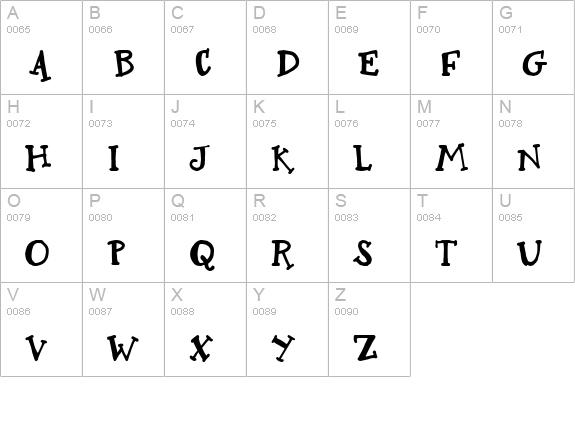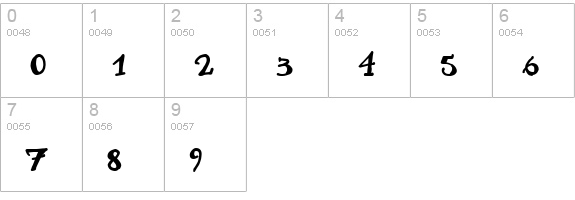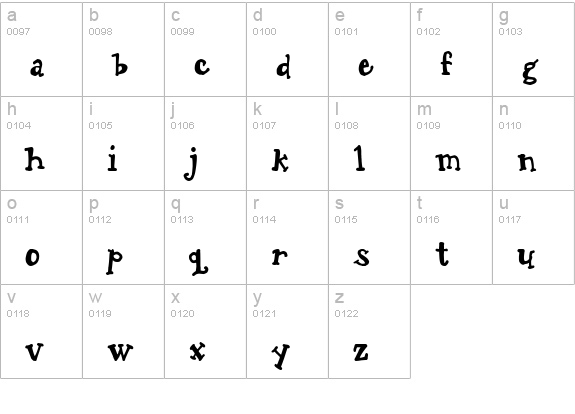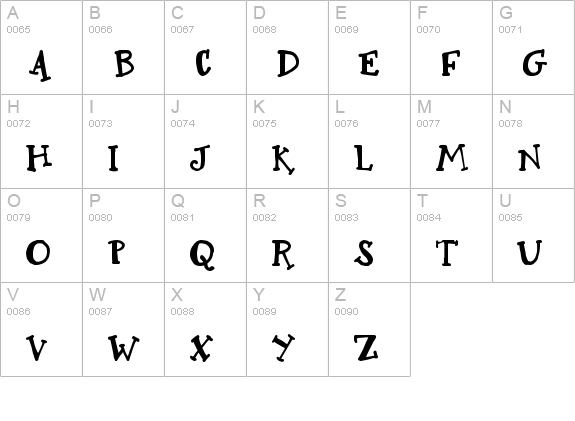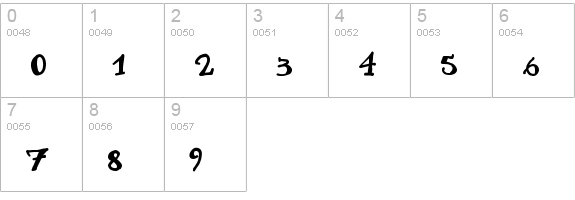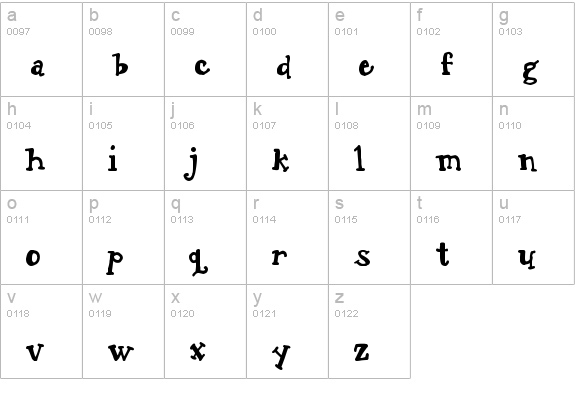
CK Fairytale Font Details
Introducing CK Fairytale, a whimsical and enchanting font that brings a touch of magic to your projects. This fairy tale-inspired typeface is perfect for adding a magical and playful element to your designs. With its elegant curves and charming flourishes, CK Fairytale is sure to captivate and delight your audience. The best part? CK Fairytale is available for free download at FontsMarket.com. Whether you're working on invitations, greeting cards, posters, or any other creative project, this font is a must-have for adding a touch of fairy tale charm. Embrace the magic of CK Fairytale and let your imagination soar with this beautiful and unique font. Download it today and start creating enchanting designs that will transport your audience to a world of wonder and delight.